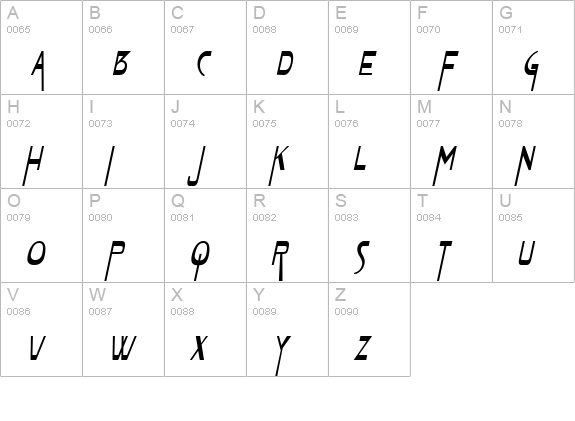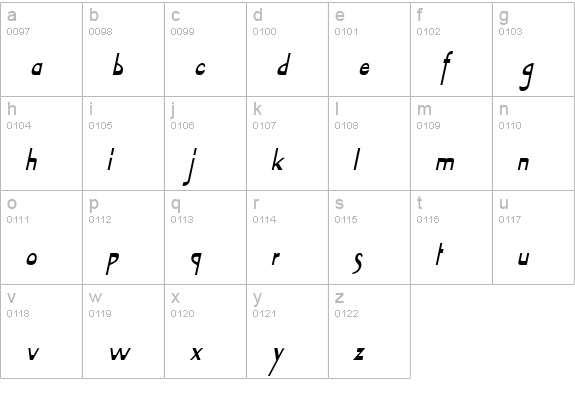
TabletCondensed Bold Italic Font Details
TabletCondensed Bold Italic is a strong, high-contrast, italic variant in the TabletCondensed typeface family \xE2\x80\x94 well suited to headlines, attention-grabbing titles, and strong calls-to-action.
TabletCondensed Bold Italic font is a stunning typeface that strikes the perfect balance between elegance and boldness. Its condensed design adds a touch of sophistication to any project, making it an ideal choice for headings, titles, and branding materials. With its slanted and bold characters, TabletCondensed Bold Italic exudes a sense of confidence and modernity. It effortlessly captures attention and adds a dynamic flair to any text, making it perfect for advertisements, posters, and website designs. The free availability of TabletCondensed Bold Italic font is a gift to designers and creatives alike. Now, you can enhance your projects without any cost or restrictions. Whether you are a professional designer or a hobbyist, this font is ready to elevate your work to new heights. Thanks to FontsMarket.com, you can easily download TabletCondensed Bold Italic font and start using it in your projects today. Whether you need it for personal or commercial use, the font is conveniently available with just a few clicks. FontsMarket.com is a trusted source for high-quality fonts, ensuring that you have access to the very best resources for your design needs. Don't miss out on the opportunity to add TabletCondensed Bold Italic font to your font library. Its unique style and versatility make it a must-have for any designer looking to make a statement. Download it for free at FontsMarket.com and let your creativity soar.